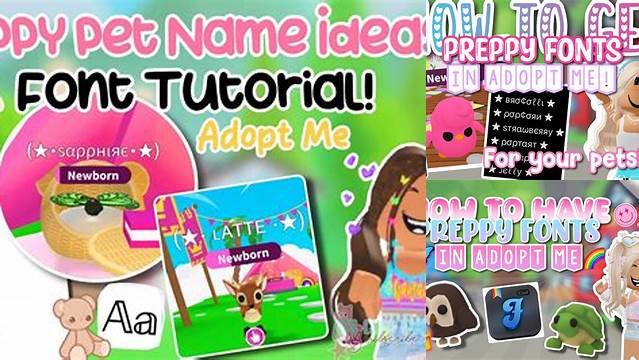
Get Preppy Fonts In Adopt Me: A Stylish Guide
Hey guys! Ever wondered how to jazz up your Adopt Me profile and make it look super chic? Well, one of the coolest ways to do that is by using preppy fonts! It's like giving your username or chat a total makeover, making you stand out from the crowd with a touch of style. This guide will walk you through everything you need to know about getting those awesome preppy fonts in Adopt Me, from finding them to using them. Let's dive in and make your Adopt Me experience extra fashionable! Whether you're aiming for a classic, clean look or something a bit more playful, preppy fonts can add that perfect finishing touch. So, get ready to elevate your Adopt Me game and express your unique personality with some seriously stylish text!
1. Understanding Preppy Fonts in Adopt Me
Alright, so first things first: what exactly are preppy fonts, and why should you care about using them in Adopt Me? Think of preppy fonts as the digital equivalent of a perfectly pressed polo shirt or a well-coordinated outfit. They're all about clean lines, a touch of sophistication, and a sense of timeless style. In the context of Adopt Me, preppy fonts can totally transform your username, chat messages, and even your pet names. They make everything look more polished and visually appealing. Imagine your username in a classic serif font – it just screams elegance, right? Or maybe you prefer a fun, bubbly font for your pet's name to give it that extra dose of cuteness. The options are truly endless, and it's all about finding the fonts that best represent your personal style. Getting preppy fonts can significantly enhance your overall Adopt Me experience by allowing you to showcase your creativity and attention to detail. It’s a subtle way to add personality and make your interactions within the game more engaging. The beauty of preppy fonts lies in their versatility; they can be adapted to suit a wide range of preferences, from the minimalist to the extravagant. This initial step of understanding why preppy fonts are awesome sets the stage for the rest of our guide, helping you get ready to transform your Adopt Me identity. Using preppy fonts is more than just a cosmetic choice; it’s a form of self-expression, allowing you to customize your virtual space in a way that reflects your personal taste and preferences.
Why Use Preppy Fonts in Adopt Me?
So, why bother with preppy fonts in the first place? Well, there are several cool reasons. First, they help you stand out! In a game like Adopt Me, where everyone's got a profile, a unique font can catch the eye and make you more memorable. Second, they allow for personalization. Fonts let you express your style and personality. Whether you're into classic, clean looks or something more fun, you can find fonts that match your vibe. Third, it enhances the overall aesthetic. Preppy fonts make your username, chat messages, and pet names look better. It's like adding a filter to your digital life in Adopt Me, making everything visually appealing. Using preppy fonts isn’t just about aesthetics, though; it's also about creating a positive impression. A well-chosen font can signal that you care about presentation and pay attention to detail, which can be a cool thing in a social environment like Adopt Me. Moreover, preppy fonts can be a fun way to experiment with different styles. You can try out various fonts until you find one that perfectly reflects your personality. This journey of exploration and self-expression is part of what makes customizing your Adopt Me experience so enjoyable. In a nutshell, preppy fonts are a fantastic way to express yourself, make your mark, and enhance your Adopt Me experience. They give you the power to customize and create a unique virtual identity. It's all about having fun and expressing your personality!
The Impact of Font Choices on Your Adopt Me Profile
The fonts you choose for your Adopt Me profile can have a surprising impact. They can completely change how others perceive you and how you interact with the game. Think about it: a classic, elegant serif font might give off a vibe of sophistication and maturity, while a playful, bubbly font could signal a fun, friendly personality. These subtle cues can influence your interactions within the game, affecting everything from how other players perceive your trades to how they respond to your chat messages. Fonts are a powerful form of non-verbal communication, helping you convey your personality and intentions even before you say a word. Moreover, your font choices can also set the tone for your Adopt Me experience. A well-chosen font can make your profile more visually appealing, drawing attention to your username, pet names, and chat messages. This can make your interactions within the game more engaging and enjoyable. When you personalize your profile with the right fonts, it can enhance the overall experience. It’s all about creating a visual identity that accurately represents who you are and what you love. By carefully considering your font choices, you can create a more cohesive and visually appealing profile. It's a simple yet effective way to make your mark in the Adopt Me community. Ultimately, the fonts you choose reflect your taste and allow you to create a unique and memorable presence in the game.
2. Finding Preppy Font Generators and Tools
Okay, so you're sold on the idea of preppy fonts in Adopt Me. Awesome! But how do you actually get them? The answer lies in font generators and tools. These are web-based or app-based programs that take your text and convert it into a variety of stylish fonts. There are loads of them out there, each with its own selection of fonts and features. The key is to find one that offers the preppy styles you love. We'll walk you through some popular options and how to use them. From simple text converters to more advanced tools, we’ll uncover the best resources to help you get those preppy fonts you crave for Adopt Me. The best part is that most of these tools are super easy to use, so you can start playing around with different fonts right away. The beauty of these generators is the ease of access; you can transform any text into a creative, stylish version within seconds.
Top Preppy Font Generators for Adopt Me
Let's dive into some of the best preppy font generators out there that you can use to up your Adopt Me game! First up, we have the classic: Lingojam. It's a super user-friendly website that lets you type in your text and instantly see it transformed into various fancy fonts, including some great preppy options. Another fantastic tool is Cool Fancy Text Generator. This site offers a huge library of fonts, including tons of stylish and preppy choices. What's cool about it is the instant preview feature, so you can see how your text will look before you even copy it. For those who want a bit more customization, there's Stylish Text Generator. It has advanced options that allow you to tweak the fonts to your liking, allowing you to create unique text styles. Each of these tools has its own quirks and strengths, so try them out to see which one fits your style best. Don’t forget to explore different generators to discover the perfect preppy font for your needs. The world of font generators is vast, so go explore and find the ideal match for your Adopt Me profile. Remember, choosing the right generator is the first step toward creating a visually stunning profile.
How to Use Online Font Generators Effectively
Using online font generators is a breeze, making it super accessible for all Adopt Me players. Here's how to do it like a pro: First, find a generator that you like. We've mentioned some great options above! Next, type your text into the generator's input box. This is where you'll enter your desired username, pet names, or chat messages. Then, browse the font options. Generators often have a wide selection of fonts. Scroll through them until you find the preppy style that you like best. After selecting your font, copy the converted text. Most generators have a handy 'copy' button that makes this step quick and easy. Finally, paste your fancy text into Adopt Me. Simply paste the copied text wherever you want to use your preppy fonts, such as your username field or chat box. It's as simple as that! Practice with different fonts and see how they look. Don't be afraid to experiment. This way, you can discover which font works best for your profile. Using online font generators effectively is about trial and error. With a little practice, you’ll be a font-generating master in no time! Remember to be creative and have fun with it. The more you practice, the better you'll get at finding the perfect preppy fonts for your Adopt Me needs.
Avoiding Common Pitfalls with Font Generators
While font generators are awesome, there are a few things to keep in mind to avoid any snags. First, always double-check compatibility. Not all fonts will work perfectly in Adopt Me. Some fonts may display incorrectly or not at all. Next, avoid overly complex fonts. These fonts may be hard to read in the game, defeating the purpose of using them. Similarly, don't use fonts that are too long or too wide. They might not fit well within Adopt Me's character limits. Also, be aware of potential security risks. Always use reputable font generators to protect yourself from malicious software or phishing attempts. Furthermore, always test your fonts. Before fully committing, test your chosen fonts in Adopt Me to ensure they look good and function correctly. It’s crucial to check how fonts appear across various devices to avoid unexpected issues. Taking these precautions will ensure a smooth and enjoyable font-generating experience. By being mindful of these potential issues, you can enhance your experience and create a stylish, functional Adopt Me profile. Remember, playing it safe is always the best strategy when dealing with online tools. Always prioritize your security and user experience.
3. Inserting Preppy Fonts into Your Adopt Me Profile
Now that you know how to generate preppy fonts, let's talk about how to actually get them into your Adopt Me profile! It's a simple copy-and-paste process, but there are a few key places where you can use these fonts. You will learn where and how to place these preppy fonts, improving your Adopt Me profile visually. From your username to your chat messages, you can change the visual appeal of your profile and make your interactions more engaging. Get ready to transform your Adopt Me identity and add that extra layer of visual appeal. You will soon be using preppy fonts everywhere in Adopt Me.
Changing Your Username with Preppy Fonts
One of the best places to show off your preppy fonts is in your username! This is the first thing other players see, so it's a prime spot to make a great impression. Here's how: First, go to your Adopt Me profile settings. You'll find this in the game's menu. Second, locate the 'username' field. This is where you can change your in-game name. Then, copy your fancy, preppy font username from your chosen generator. Now, paste the converted text into the username field. Make sure it looks the way you want it to! If it works, your new preppy username is good to go! Sometimes, the font might not display perfectly. If you have problems, try a different font or generator. Always remember to keep the username within the character limit. This is usually not a problem with most generators, but it’s good practice to double-check. Your new username will stand out and give your profile a personalized touch. A well-chosen username is a great way to make a statement and express your personality. Take your time to choose a font that represents who you are in Adopt Me! A stylish username will give a great first impression and make your interactions with other players much more enjoyable.
Utilizing Preppy Fonts in Chat and Messages
Beyond your username, preppy fonts can spice up your in-game chats and messages. This is an awesome way to add some style to your daily Adopt Me interactions. To start, open the chat box in Adopt Me. Then, type your message as usual. Instead of directly typing the message in the chat, open your font generator. Now, type your message into your font generator. Copy the converted text with your fancy font. Finally, paste the converted text into your Adopt Me chat. Boom! Your message now stands out with its stylish font. This is a cool way to personalize your chats and have fun. You can also use preppy fonts in other areas of the game that accept text inputs, like signs or pet descriptions. Make sure to keep the font legible and readable. Experiment with different fonts to find what works best for you. Using fonts in chat is a subtle way to express your personality. It’s a simple trick that can make your messages much more eye-catching and engaging. This is a great way to make friends and stand out in the crowd in the game. This simple tweak can help you create a memorable experience.
Incorporating Preppy Fonts for Pet Names and Descriptions
Giving your pets preppy names and descriptions is a fun way to show off your style and personality. Here’s how to do it: First, access your pet's profile. Then, go to the naming section. Next, open your font generator and create a preppy font name for your pet. After that, copy the converted text. Paste the fancy text into your pet’s name field. Do the same with the description field if you want to customize it. If it works, congrats! You have given your pet a stylish new name. If it doesn't, don't worry! Try a different font or generator. Make sure to create a description that matches your pet’s unique personality. This adds another layer of personalization to your Adopt Me game. Preppy fonts for pet names and descriptions will make them stand out. It's a fun way to make your pets feel special. It's also a great conversation starter within the game. Now, enjoy showcasing your stylish pets and sharing your unique style with other players in Adopt Me.
4. Troubleshooting Font Issues in Adopt Me
Sometimes, you might encounter some problems when using preppy fonts in Adopt Me. Don't worry; it's usually fixable! This section is all about troubleshooting any issues you might face. This is where you find solutions and make sure your fonts look great in the game. From compatibility problems to display errors, we will cover the common font-related problems and provide easy solutions. You’ll learn how to fix font problems and make your Adopt Me profile stylish.
Addressing Font Compatibility Problems
Font compatibility is a key issue when using preppy fonts. Not all fonts work well in Adopt Me. If your font doesn’t display correctly, or if you see question marks or boxes instead, it means there’s a compatibility problem. First, make sure the font you are using is supported. Some fonts simply aren’t compatible. Try a different generator or font style. Some generators may have better compatibility. Try different fonts within the generator. See if one works! Also, be sure your game is up to date. Sometimes, updates can fix font-related problems. If the issue persists, it may just be that the font isn't supported. By trying different fonts and generators, you can usually find one that works. Always remember to test the font before you fully commit to it. This will save you time and effort. Compatibility issues can be frustrating, but don't give up. A little experimentation will usually solve the problem and get you those preppy fonts you crave. You'll find the perfect font for your profile soon enough.
Dealing with Display Errors and Character Limits
Display errors and character limits are common issues when using preppy fonts. Display errors can include fonts appearing incorrectly or not at all. Character limits mean that you can't use excessively long text. If you experience a display error, try a different font. Some fonts are more prone to these issues. Also, test your fonts in the game. This way, you can see how they will look. If the text doesn't fit, try shortening your message. Most Adopt Me text fields have character limits. If your text exceeds the limit, it will be truncated or won't display. To deal with limits, be concise in your messages. Short and sweet is the way to go! Always check the character limit before pasting your text. Generators show the length of your text. By being aware of the character limit and testing, you can avoid most display problems. The key is to experiment and adapt. You can always find a font that works within the limits and still looks great. This allows you to create a stylish Adopt Me experience.
Seeking Help and Resources for Font Troubles
If you're struggling with font issues, don't worry. There are many resources available to help! The Adopt Me community is a great place to start. Many players have experience using fonts and are happy to offer advice. Ask questions on Adopt Me forums, Reddit, or social media groups. Also, consult online guides. Many websites and blogs offer troubleshooting tips and tutorials. Look for specific guides on font compatibility and character limits. Also, try contacting the Adopt Me support team if you have any problems. They may have solutions or be able to address any technical issues. Finally, always remember to search for solutions. With the right help and resources, you can overcome any font-related problems. The community is very supportive, and you will get a response very quickly. Seeking help and using online resources can solve your font troubles and create a stylish and functional Adopt Me profile. With some effort, you will have stylish preppy fonts working for your profile.
5. Creative Ways to Use Preppy Fonts in Adopt Me
Now that you've mastered the basics, let's explore some creative ways to use preppy fonts in Adopt Me! You're ready to elevate your Adopt Me experience by using preppy fonts and making your profile and interactions more stylish. From crafting unique pet names to creating themed profiles, preppy fonts offer a world of possibilities. You can boost your creativity and make your Adopt Me experience stylish.
Designing Themed Profiles with Preppy Fonts
One of the coolest things you can do with preppy fonts is design themed profiles! This is where you create a cohesive look that represents a particular style or interest. First, choose a theme. This could be anything from a specific color scheme to a favorite animal or even a season. Then, pick fonts that match your theme. A classic serif font might suit a vintage theme, while a more playful font fits a fun, colorful theme. Also, consider your pet names. Rename your pets to reflect your theme. For example, if your theme is “forest animals”, name your pets after trees or other forest elements. Next, tailor your profile description to match the theme. Use the preppy fonts for a consistent look. Coordinate your outfits and accessories. This enhances your theme even further. Using themed profiles will showcase your creativity. Themed profiles are a fun way to express yourself and stand out. They are also a way to connect with others who share your interests. Creating themed profiles with preppy fonts will enhance your Adopt Me experience. It will allow you to have a profile that truly reflects you. Create a memorable and stylish profile.
Creating Unique Pet Names with Stylish Fonts
Your pets are a huge part of your Adopt Me experience. Using preppy fonts for pet names is a great way to give them a touch of style and personality! Start by brainstorming names. Think about your pet's appearance and personality. Then, find a preppy font that fits your pet's vibe. A bold, playful font might suit a cheerful pet, while a more elegant font works for a sophisticated one. Consider adding descriptive words to your pet names. For instance, “Sparkle” the Unicorn looks great in a preppy font. Be creative and have fun! Experiment with different fonts and names until you find the perfect match. This is one of the best ways to show off your pets. Pet names are an awesome way to showcase your personality and style. You can make your pets even more special. This personalized touch will create a stronger connection with them. Stylish pet names are also a fun way to spark conversations and connect with other players in the game. Your pet’s name is its first impression. Give it your personal touch and see how it creates a memorable and stylish profile. Go ahead and give your pets a preppy makeover!
Combining Preppy Fonts with Emotes and Decorations
Combining preppy fonts with emotes and decorations is a great way to make your Adopt Me profile even more visually appealing! This is where you add extra visual elements, such as emojis and decorations, to complement your fonts. First, select your fonts. Choose the preppy fonts you want to use for your username and chat messages. Add emojis that match your style and personality. For example, a heart emoji to your username or your pet's name. Use decorations in your house or inventory to fit your theme. Coordinate everything! The more it matches, the better it looks. Combining fonts, emotes, and decorations will add an extra layer of creativity. This will make your profile unique and visually interesting. Adding a little effort will make a big difference. Your profile will definitely stand out. This also creates a more engaging and enjoyable Adopt Me experience. Experiment with different combinations and styles to create a profile that truly reflects your personal style.
6. The Future of Fonts and Customization in Adopt Me
What's next for preppy fonts and customization in Adopt Me? Well, the future looks bright! This section covers what may happen in the future for Adopt Me and its users. We will talk about how fonts and customization might evolve within the game. From new fonts to enhanced tools, the possibilities are exciting. Get ready to find out what's in store!
Potential New Font Styles and Features
We may see new font styles and features coming soon. This is because developers are always working to improve the user experience. Think about more variety. Maybe new preppy fonts, or styles. This will allow players to express themselves even more! Developers might add dynamic fonts. These could change based on in-game events or the player's mood. Maybe even more advanced customization tools. This may allow users to tweak fonts even further. Players would have greater control over their profile's appearance. These new features could allow for more creative freedom. Stay tuned for all the new possibilities for fonts in Adopt Me.
The Role of Customization in the Evolving Adopt Me Experience
Customization plays an important role in Adopt Me. It lets players express themselves and make their experience more personal. This makes the game more engaging and fun. Developers will continue to prioritize customization. They may add new features like custom profile backgrounds. More options for avatars and pets are on the way. The more you can customize, the more you can create a personalized experience. Customization is crucial for a thriving Adopt Me community. As the game evolves, expect even more opportunities to personalize your Adopt Me experience. The community thrives on self-expression. So, the developers will keep adding new features to make the game better.
Staying Updated with Adopt Me Font Trends
Want to keep up with Adopt Me's font trends? Here's how. Follow Adopt Me's official social media channels. They often share updates and new font releases. Join Adopt Me communities. You'll find all the latest tips and trends. Regularly check for updates. Game updates often bring new features, including fonts. Experiment with new fonts as they appear. Try them out in your profile and chat. This is a fun way to show your creativity. By staying updated, you'll always be ahead of the curve. You can also share your favorite fonts. This could inspire other players! By keeping up with these trends, you can keep your Adopt Me profile fresh and stylish. This is an awesome way to stay connected with the community. Make sure to stay in the loop, and keep your Adopt Me experience stylish and fun!